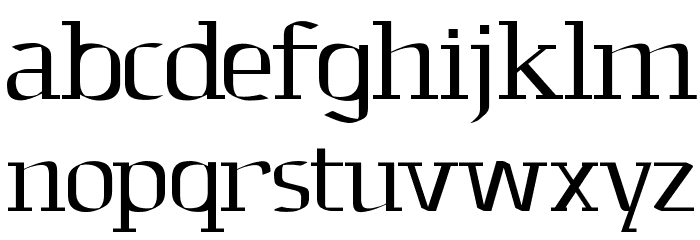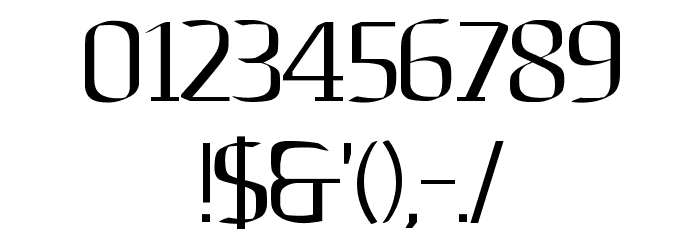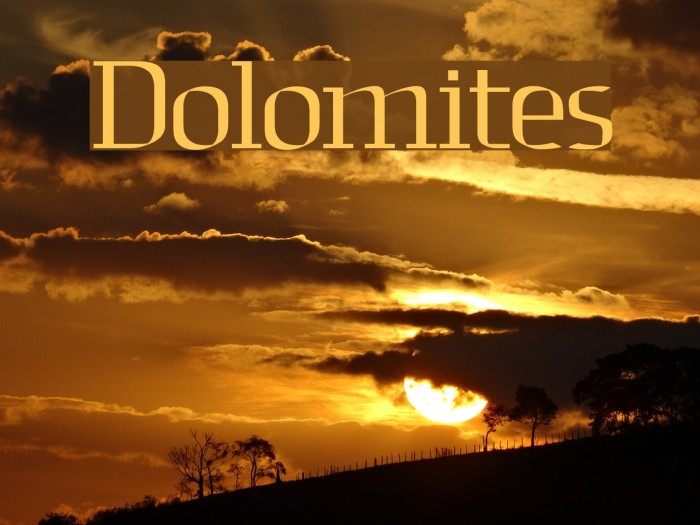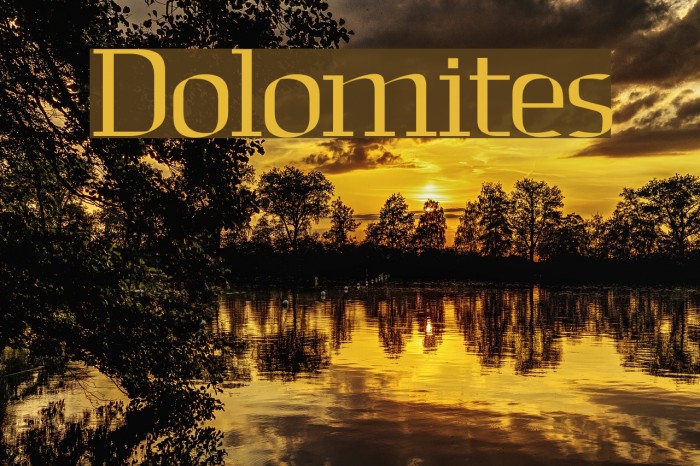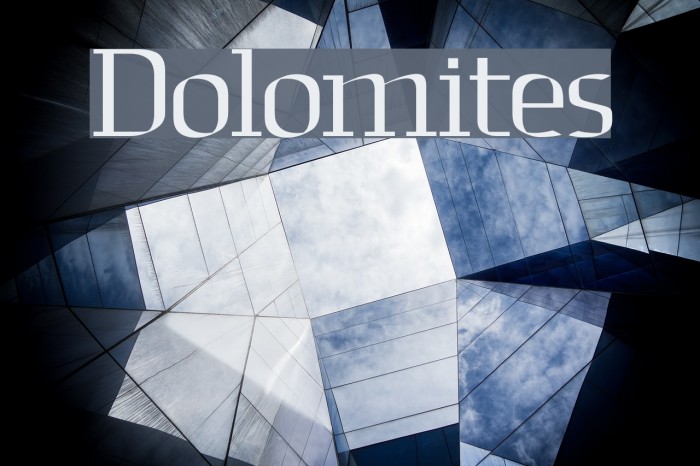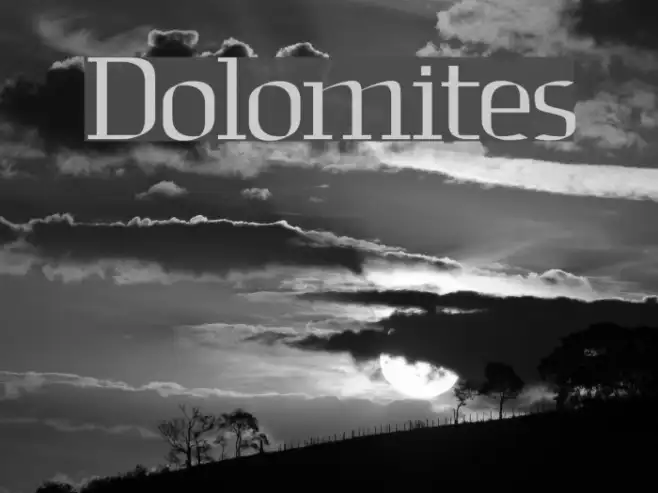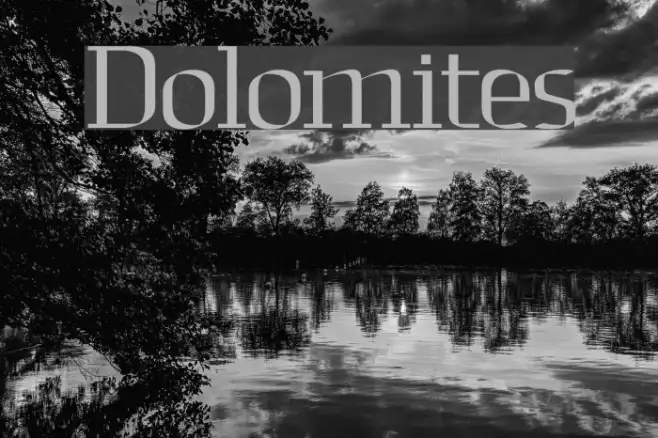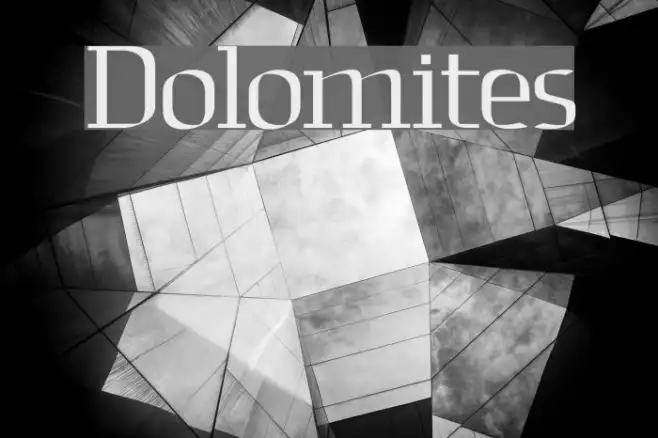
Dolomites Font
This font features a modern and elegant design with a distinct geometric influence. The uppercase letters are bold and commanding, with sharp angles and clean lines that give a sense of authority and sophistication. The lowercase letters maintain a consistent style, offering a harmonious balance between the characters. The numerals are clear and legible, designed to complement the overall aesthetic. Special characters are crafted with precision, ensuring they integrate seamlessly with the rest of the typeface. The font's design is versatile, making it suitable for a wide range of applications from digital to print media.
A modern, geometric font with sharp angles and clean lines.
- Proposed Projects: Ideal for branding, editorial design, and digital interfaces.
- Use Case: Headlines, Logos, Branding